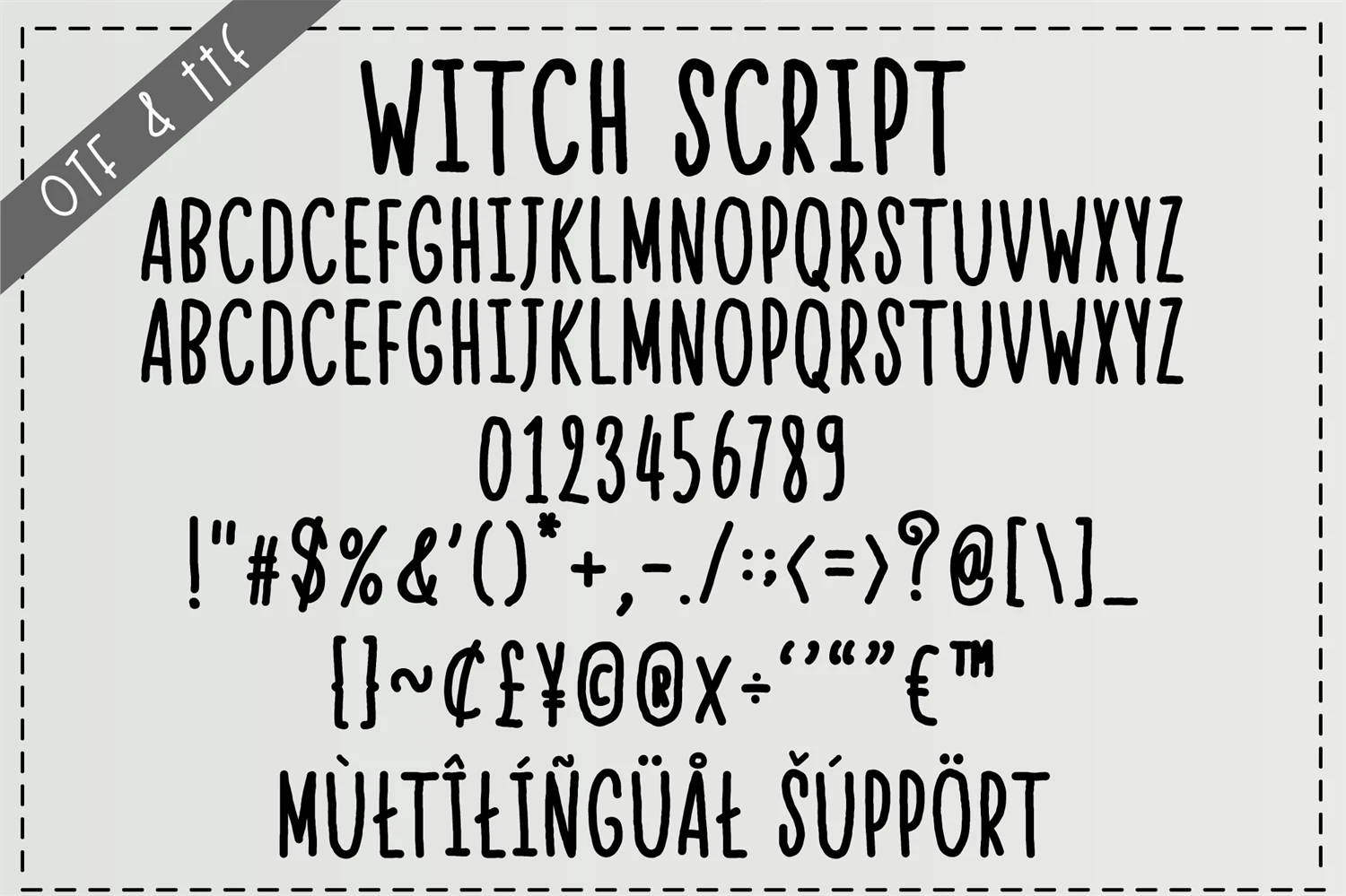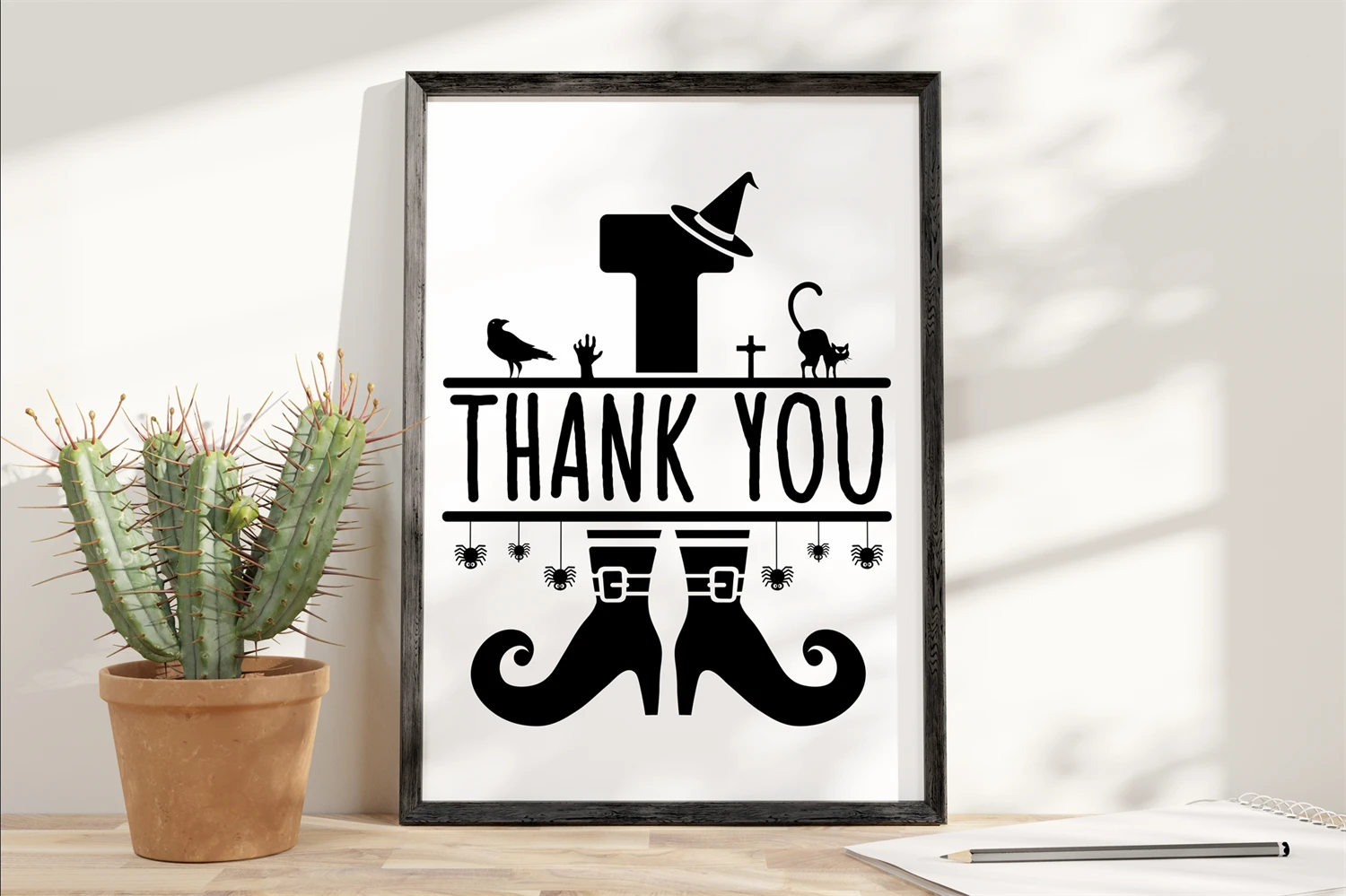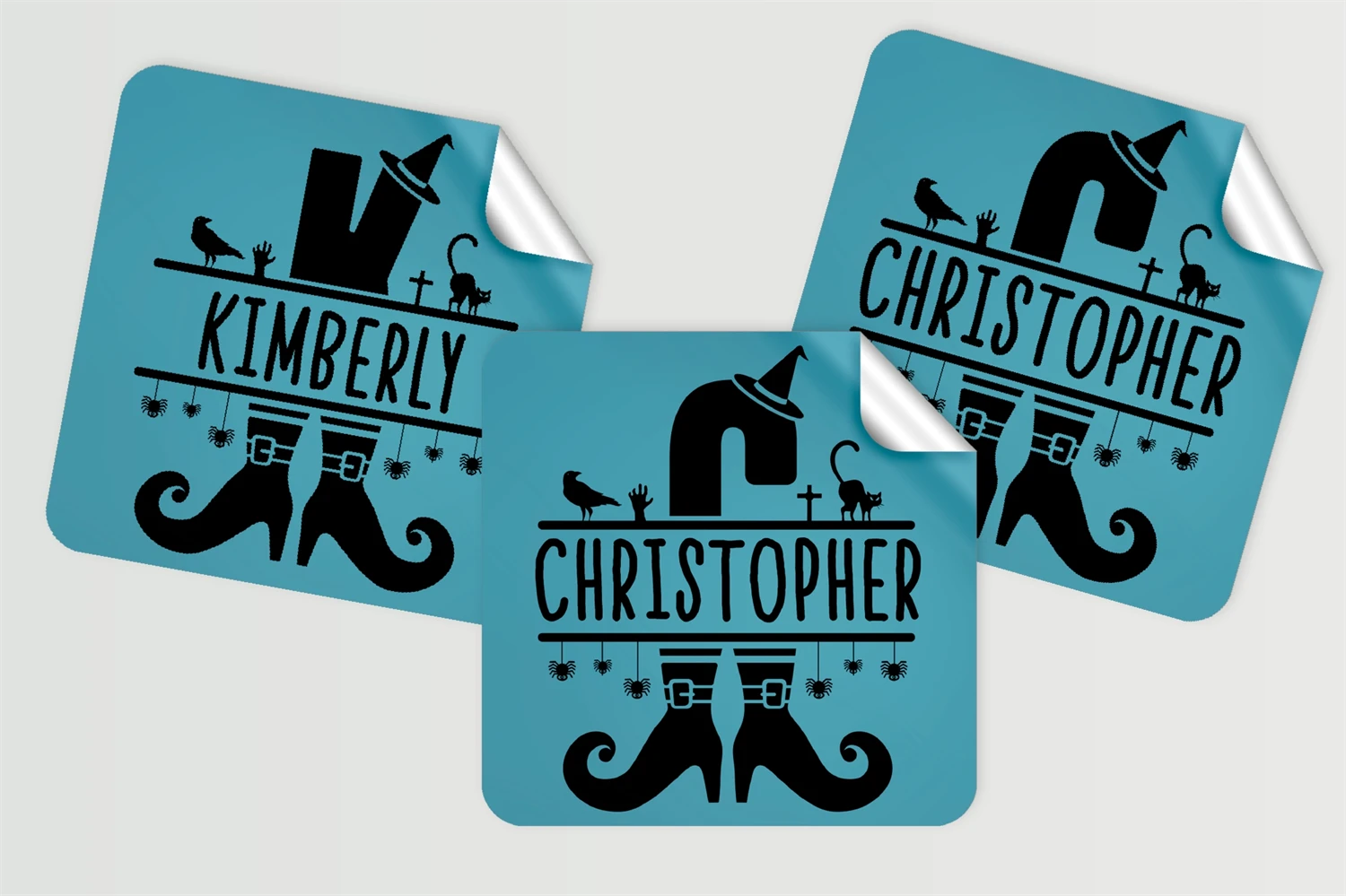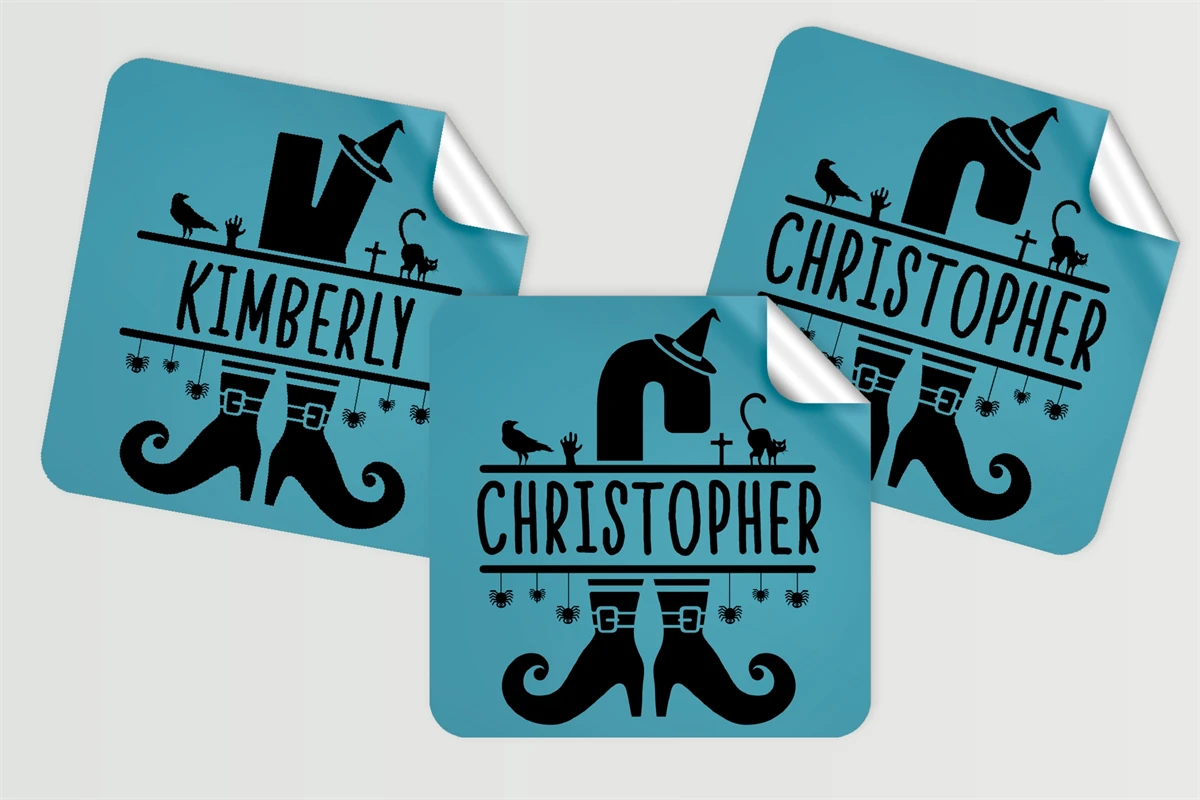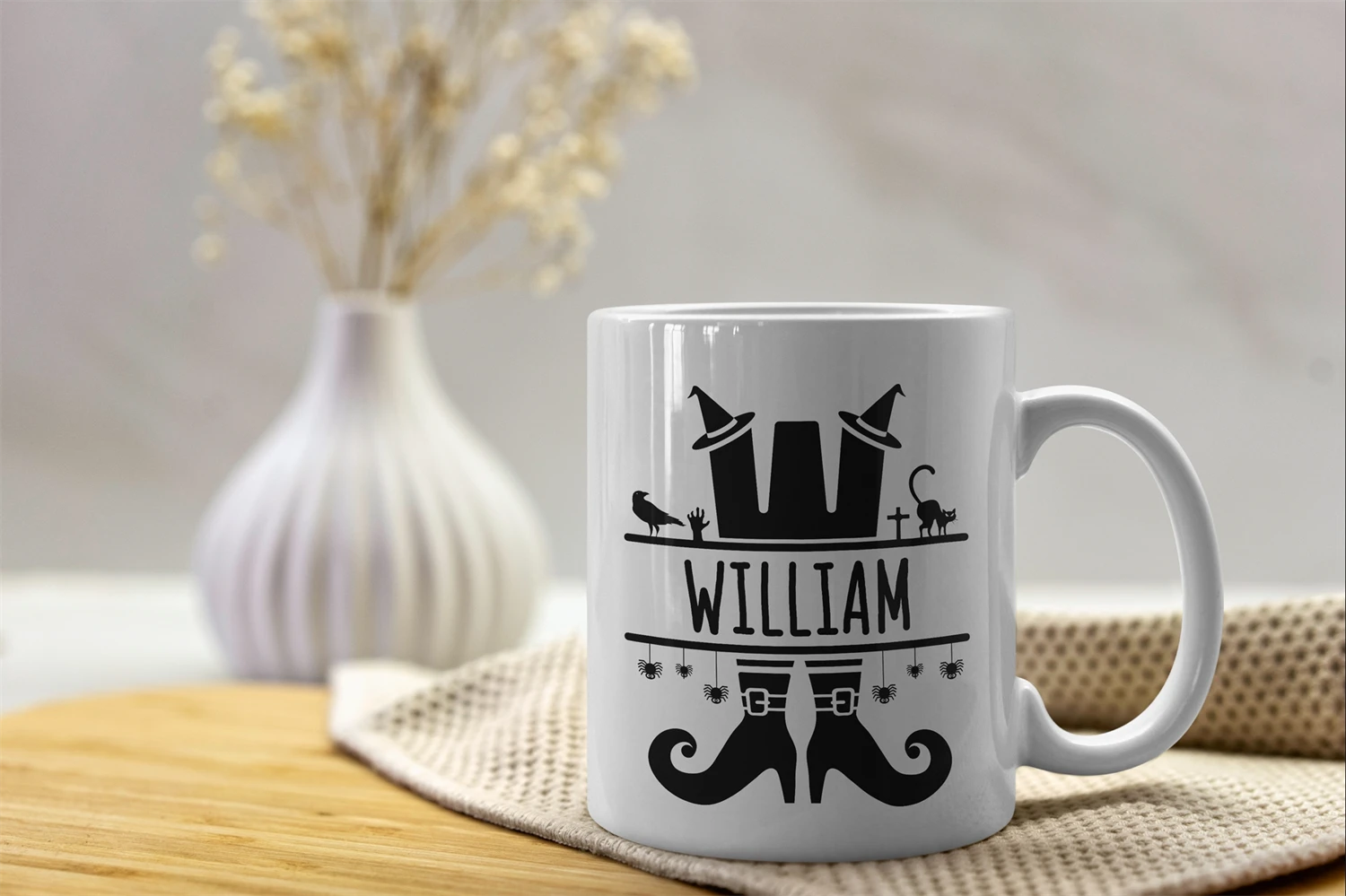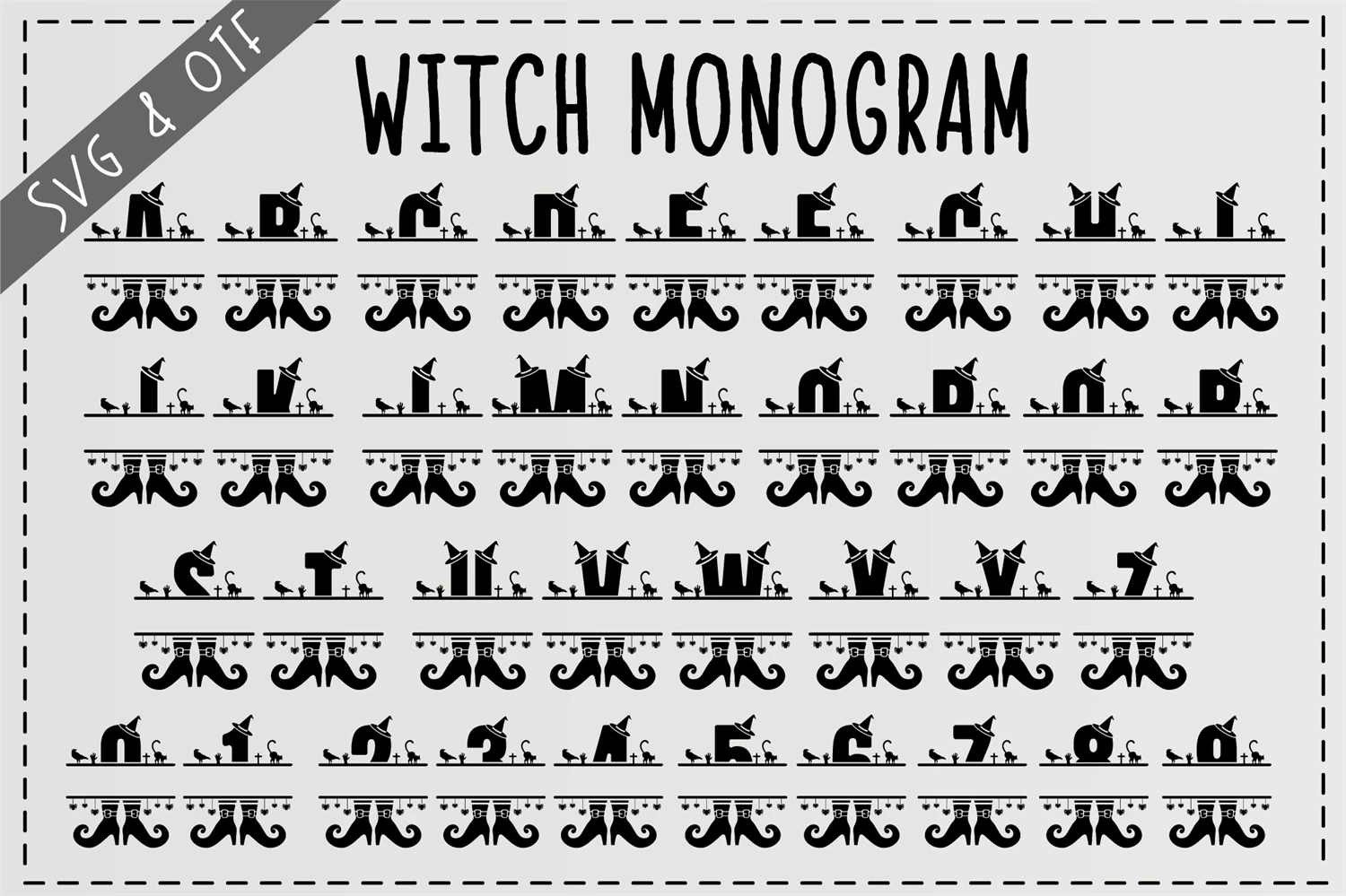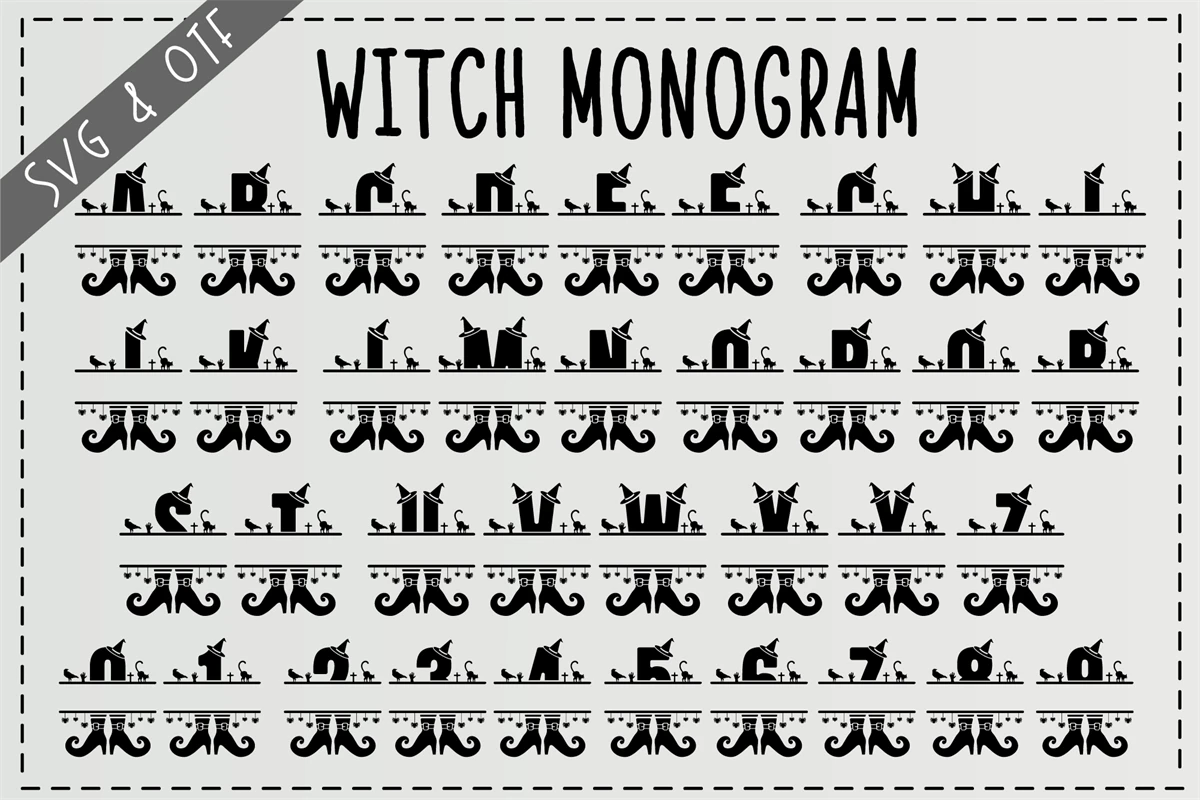
Witch Monogram is a captivating duo font that effortlessly weaves the enchanting allure of witchcraft with the elegance of minimalism. This unique combination features a sophisticated witch monogram font, allowing you to infuse your designs with a touch of mystique, and a complementary minimal simple font for added versatility. From personalized monograms to chic branding and beyond, Witch Monogram adds a spellbinding element to your projects.